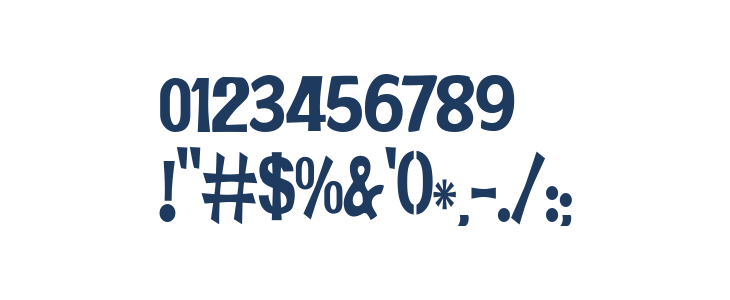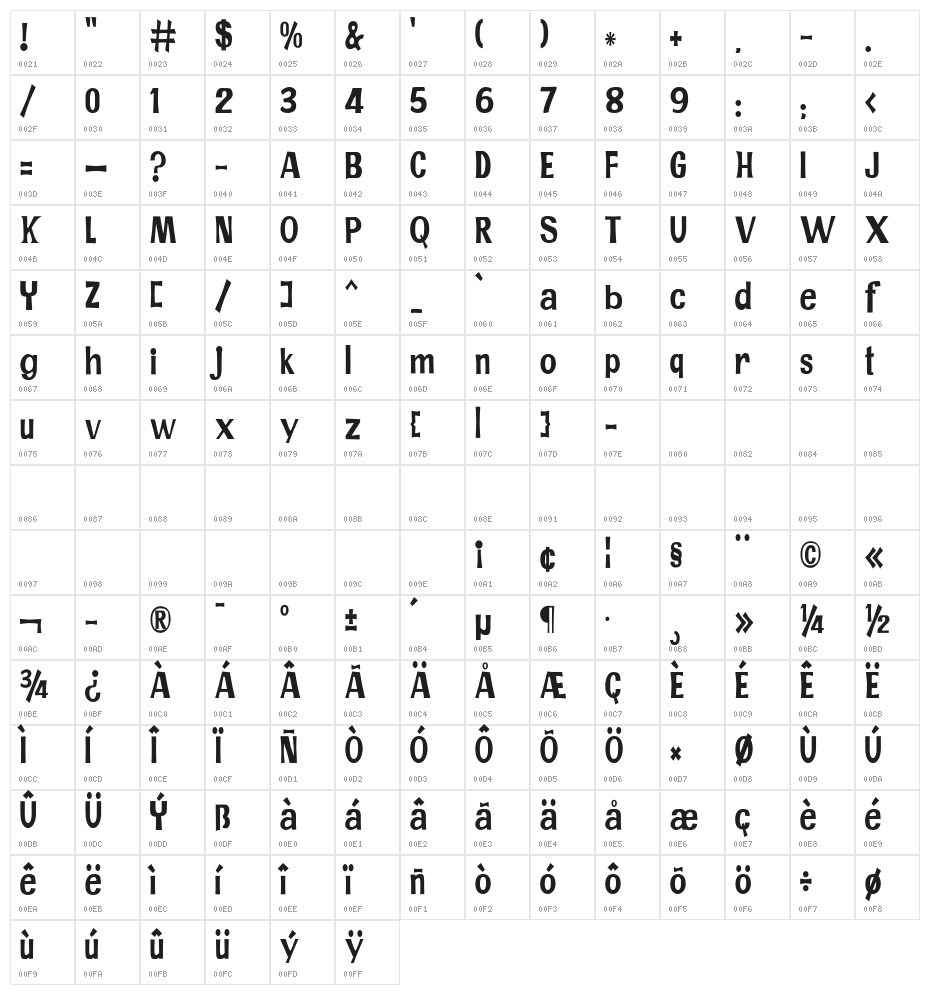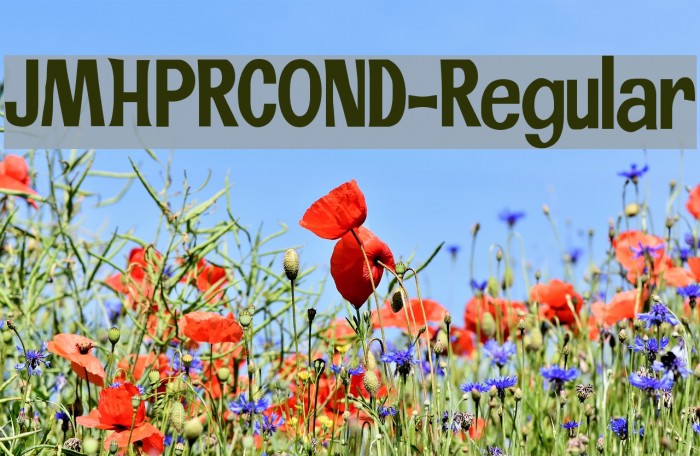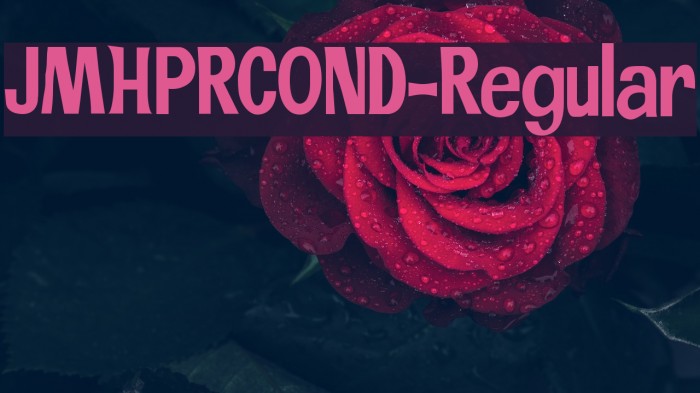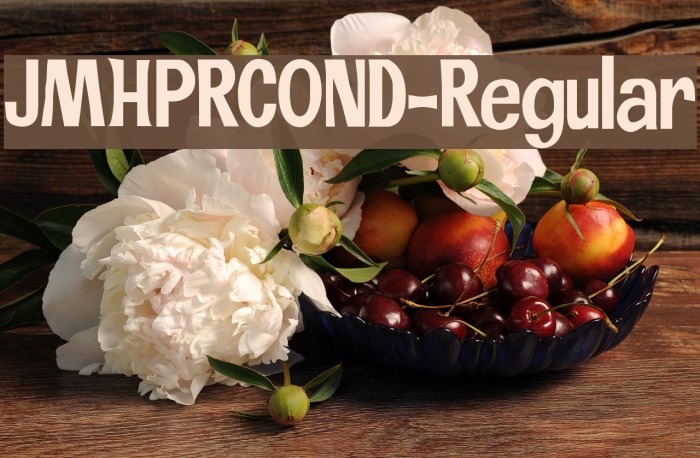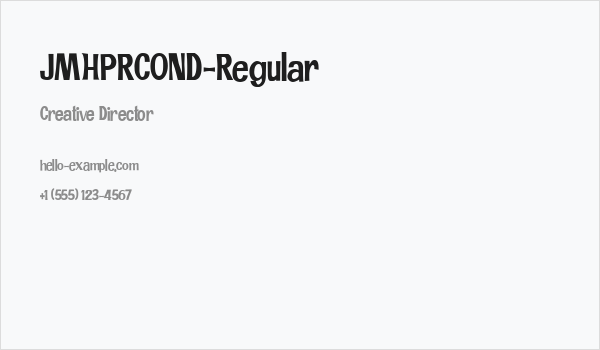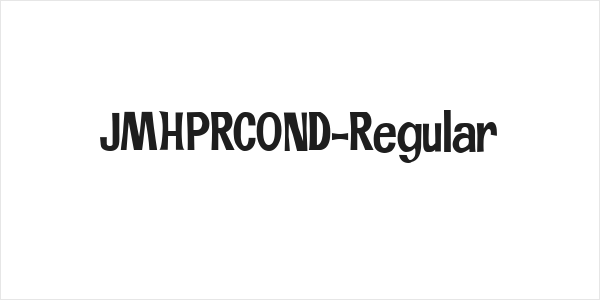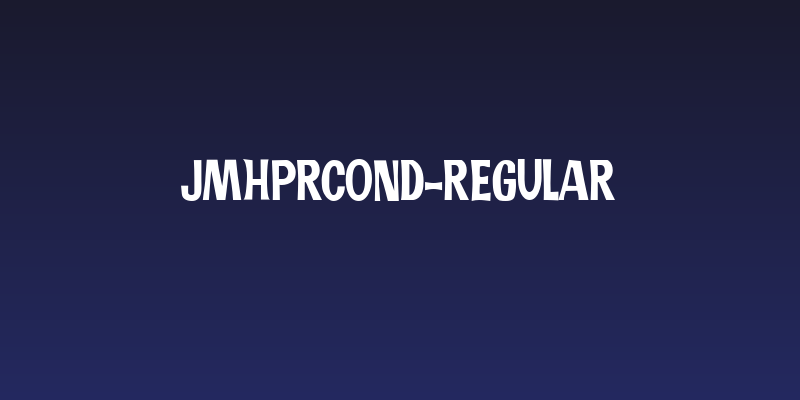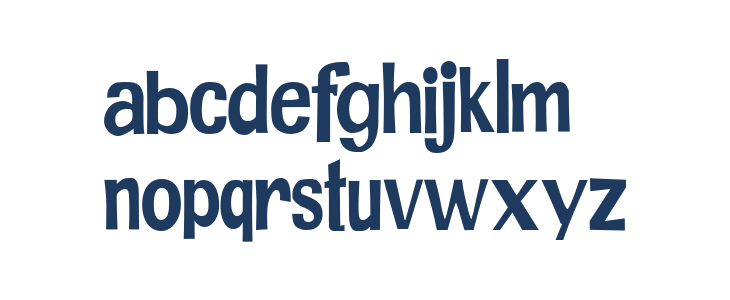
JMHPRCOND-Regular Font
JMHPRCOND-Regular Description
This font features bold, thick strokes with a strong presence, making it ideal for attention-grabbing designs. The uppercase letters are tall and imposing, while the lowercase letters maintain a consistent weight, providing a balanced look. The numerals are clear and robust, ensuring readability. Special characters are distinct and well-defined, adding versatility to the font's use. The overall style is modern and impactful, suitable for a variety of design projects.
| Proposed Projects | Ideal for headlines, posters, branding, and advertising where a strong visual impact is needed. |